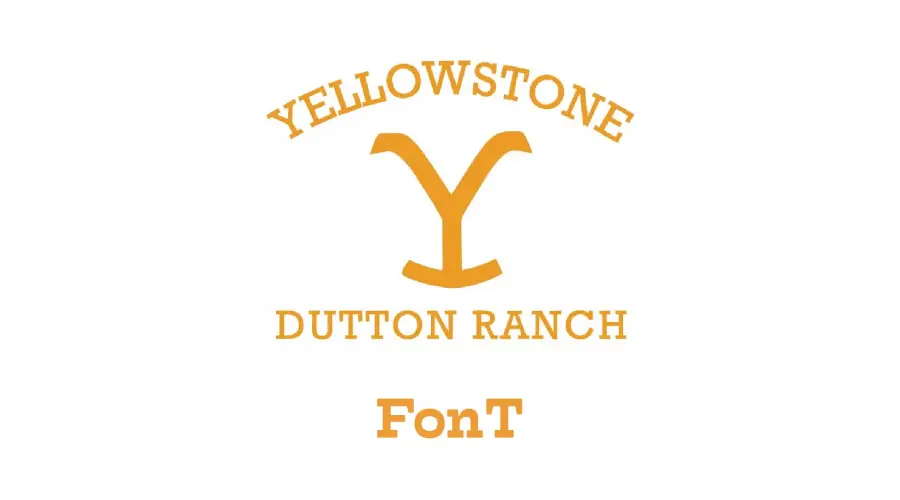
Yellowstone Font
The Yellowstone font used in the Yellowstone TV show logo is Hatch font. And Yellowstone is a TV series that premiered on Paramount Network on June 20, 2018. It is a Neo-Western drama that follows the Dutton family, who own and operate the largest ranch in the United States. The series explores the conflicts and challenges the Duttons face from various enemies, such as land developers, Native Americans, politicians, and rival ranchers. The series also depicts the personal and professional lives of the Duttons and their allies and enemies.
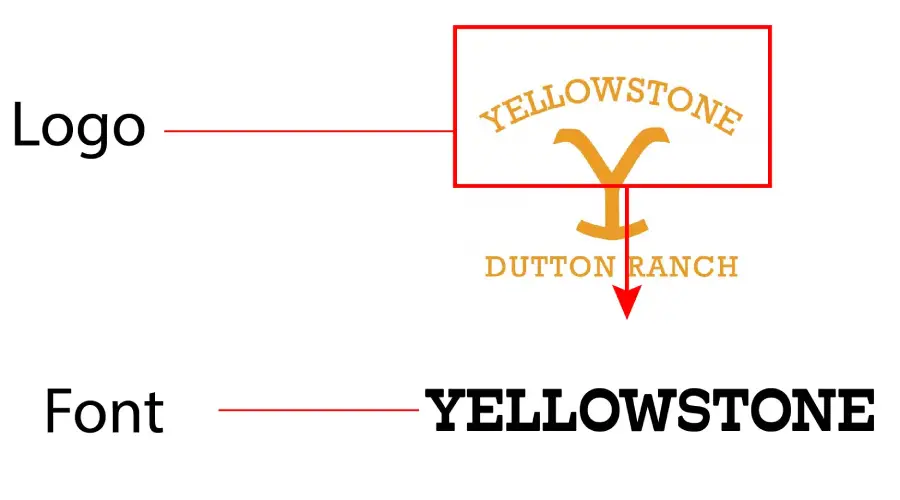
Yellowstone Logo vs Hatch Font Similarity Example
Designers in the TV show used the Hatch font to design the Yellowstone logo. Hatch is a slab serif font designed by Mark Caneso and released by PSType in 2012. Hatch has eight styles, from thin to black, and supports many languages and OpenType features. Hatch is influenced by the Bauhaus movement, which emphasizes functionality and simplicity in design.
Yellowstone logo uses the Hatch, a slab serif font inspired by the Bauhaus movement. Yellowstone is a neo-Western drama that follows the Dutton family and their ranch. You can use our Yellowstone font generator to see how your text looks in the Yellowstone font. You can customize your text and download the preview and the font. Thank you for reading, and enjoy the Yellowstone font!